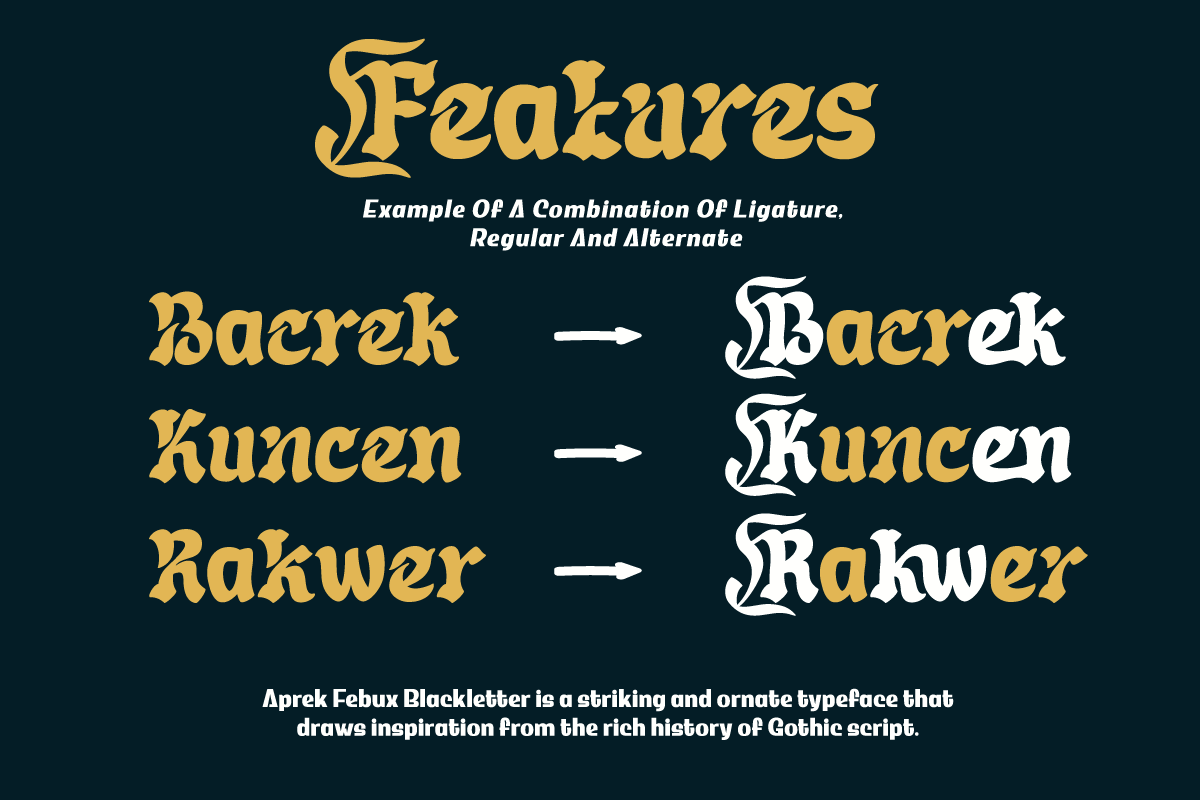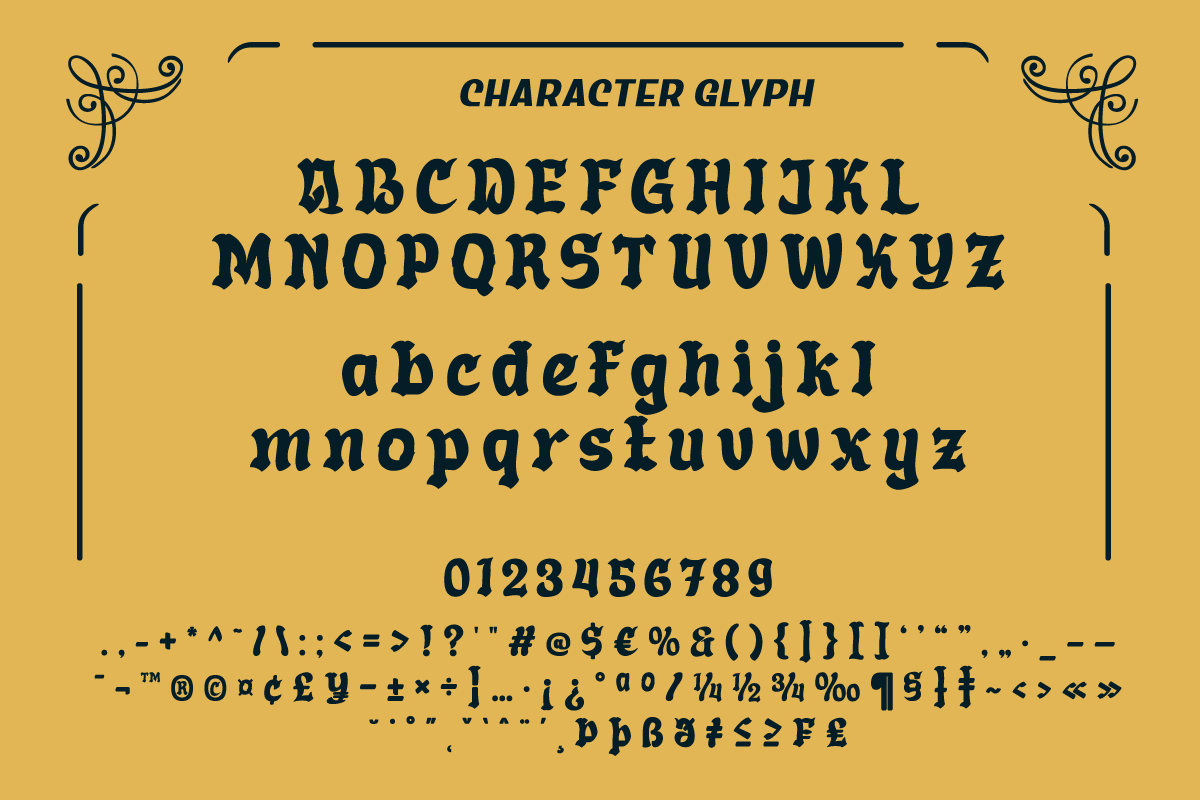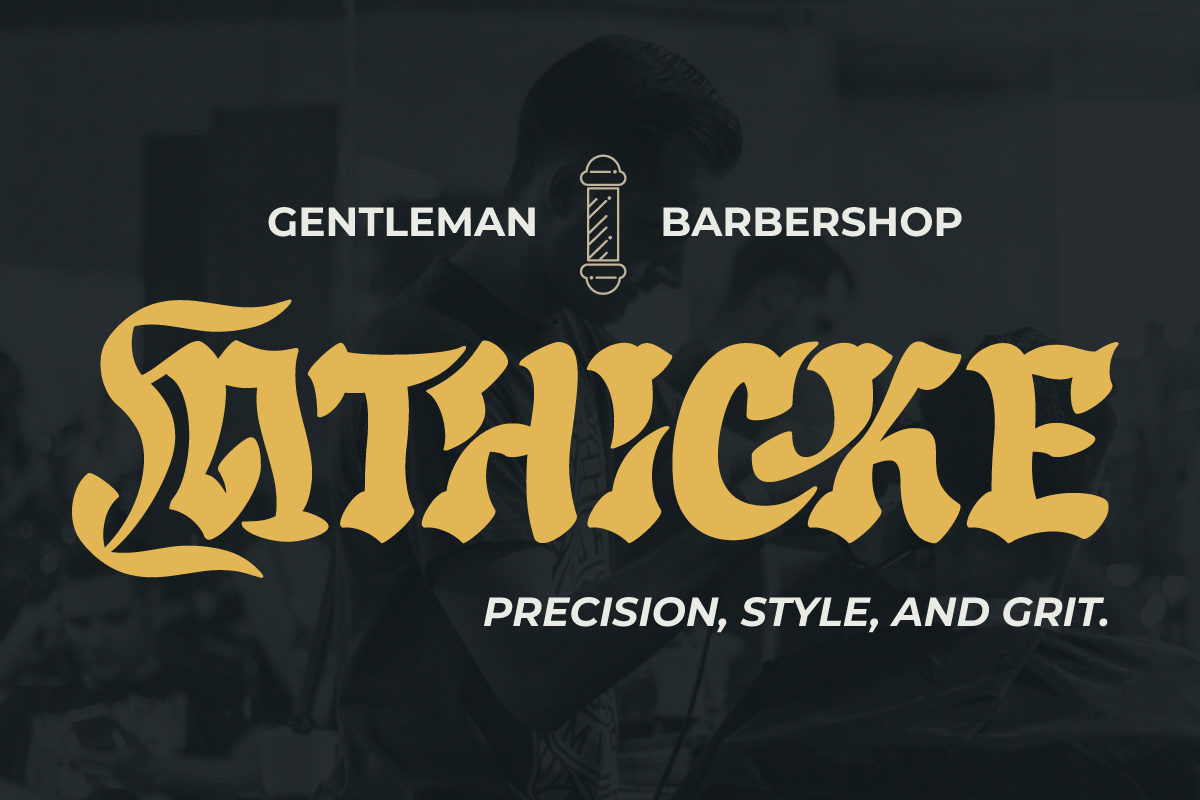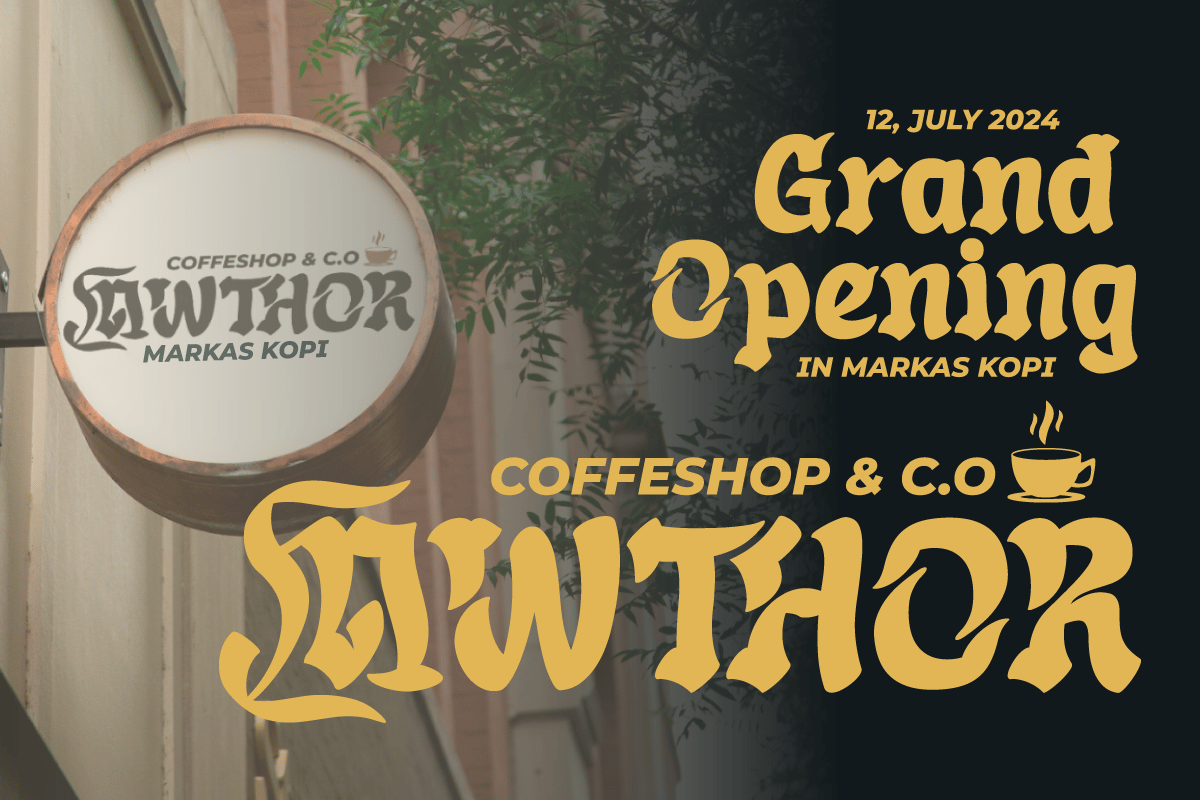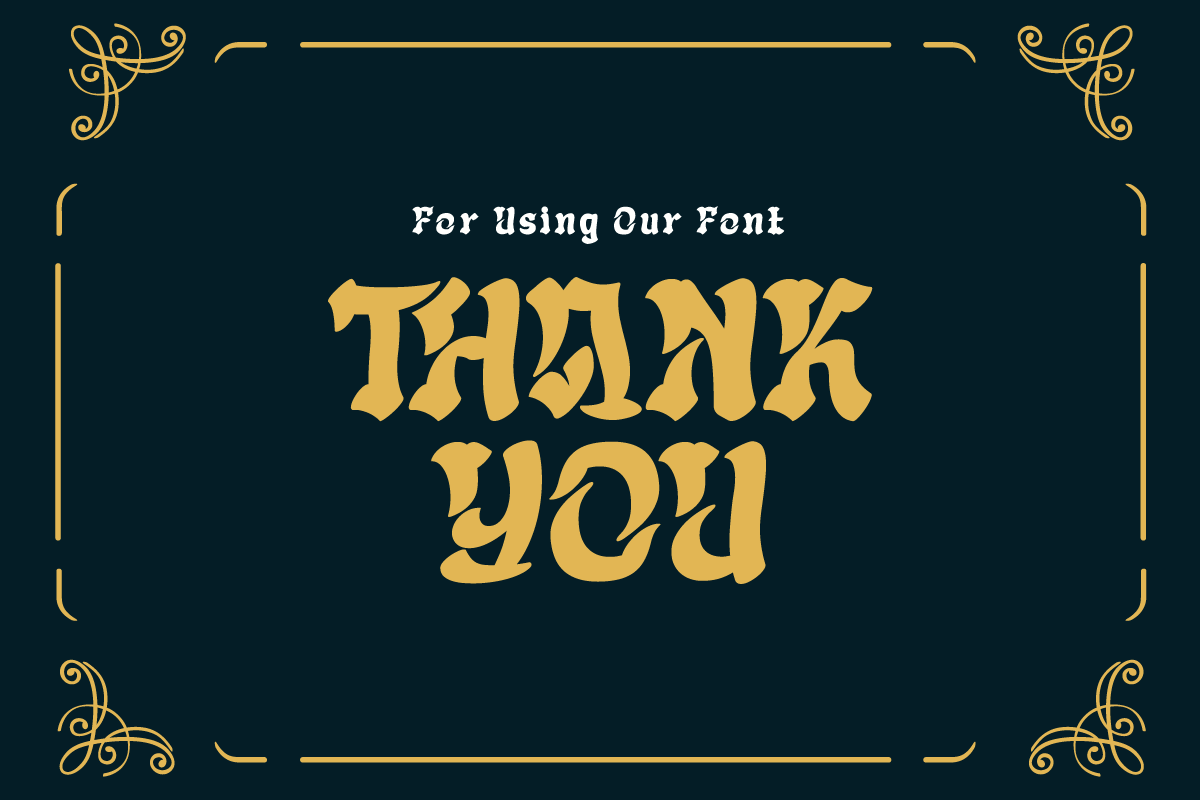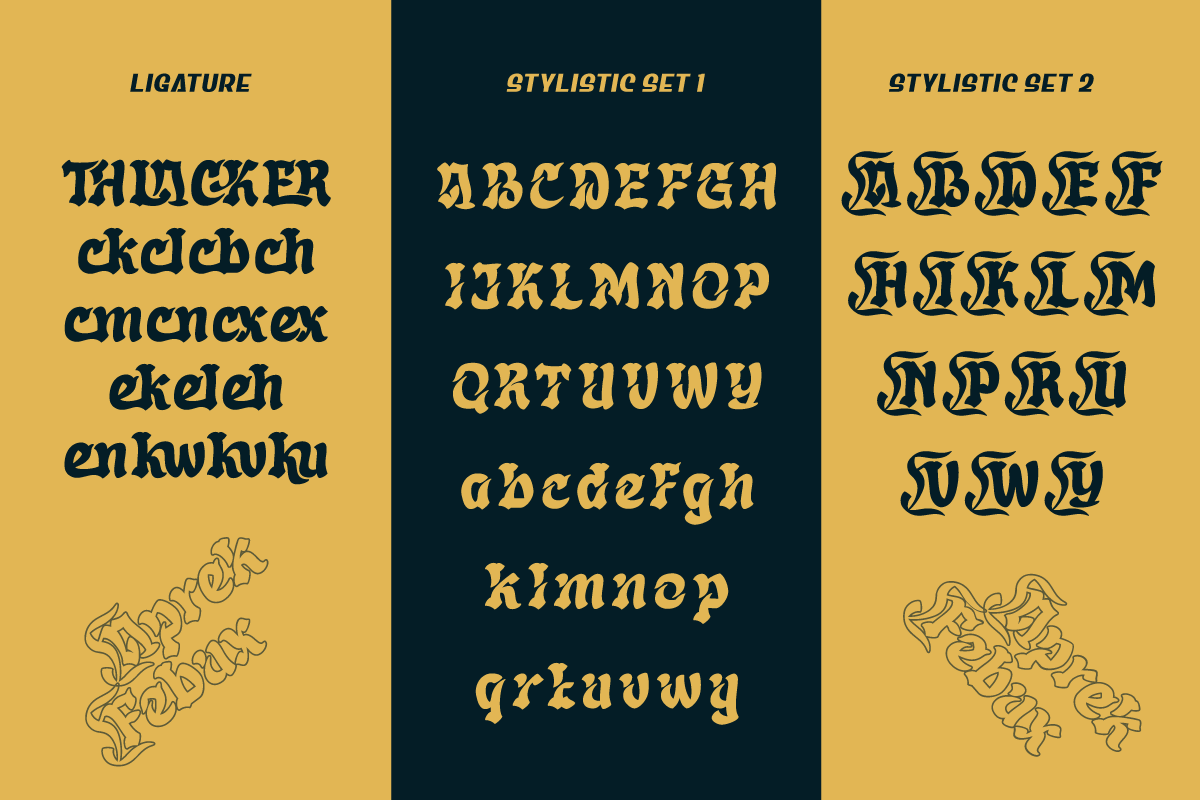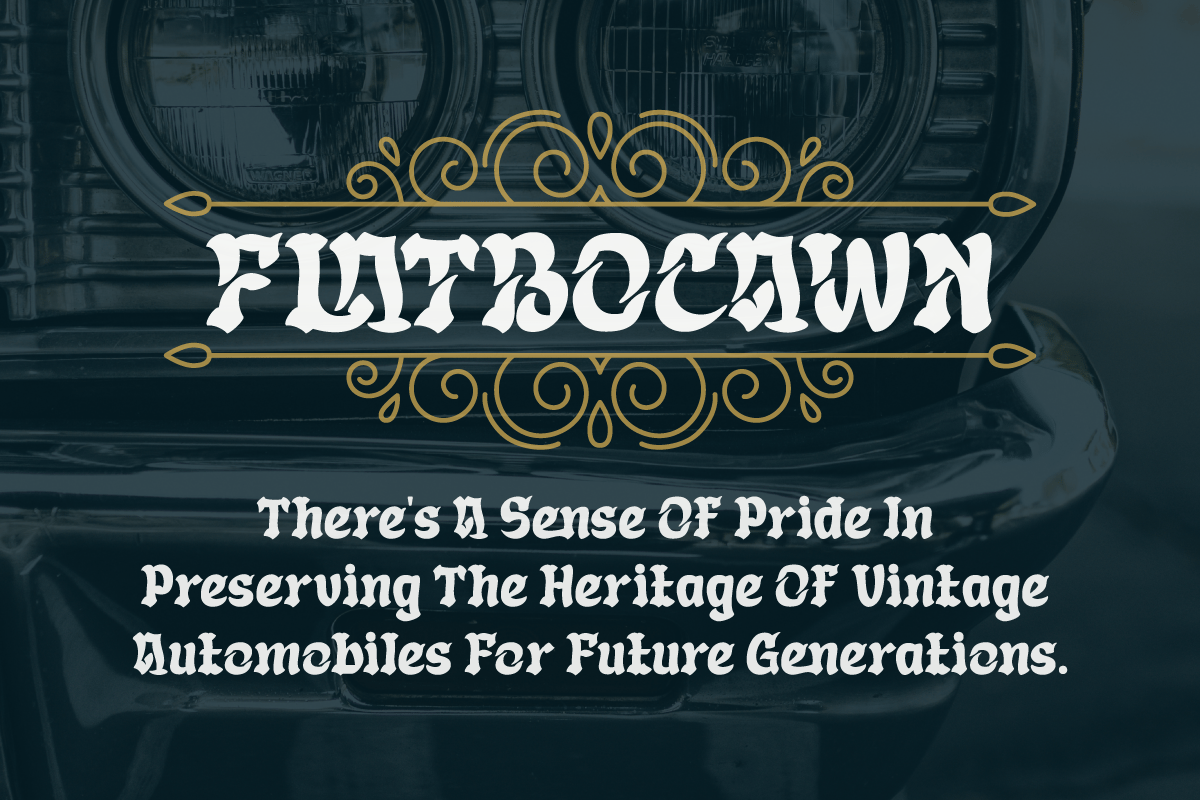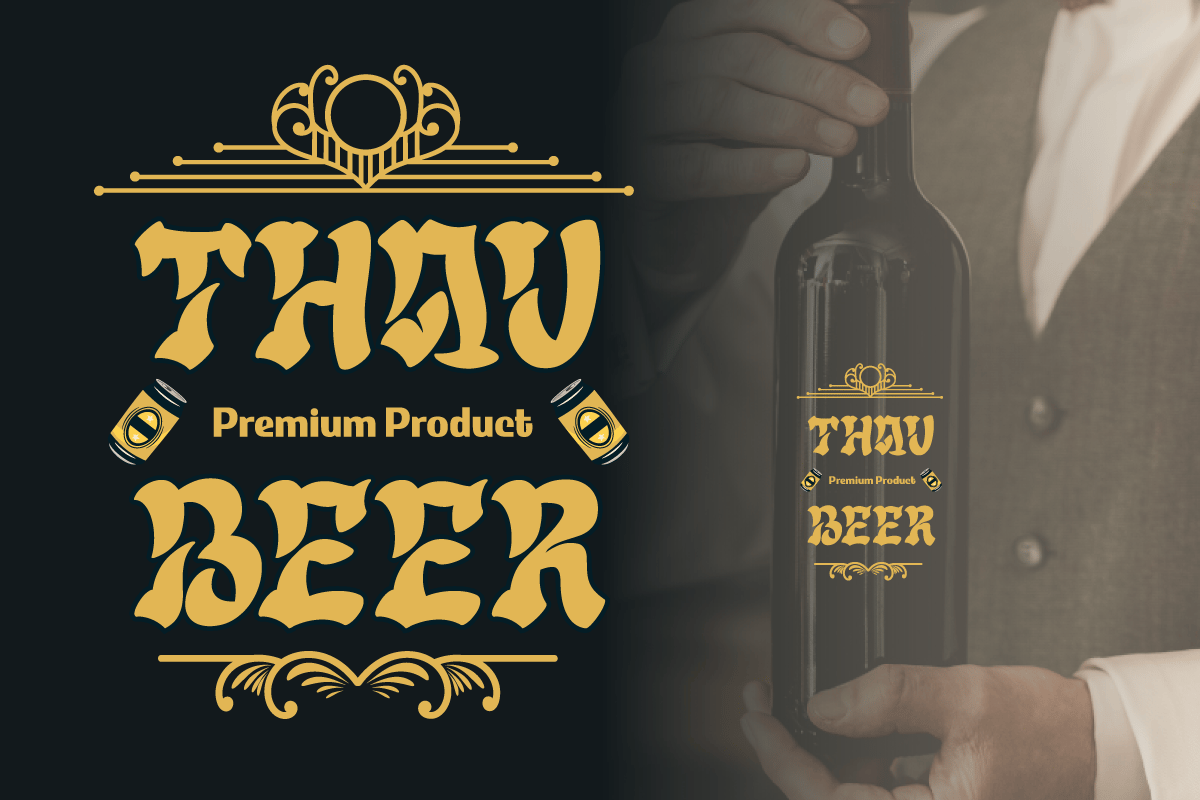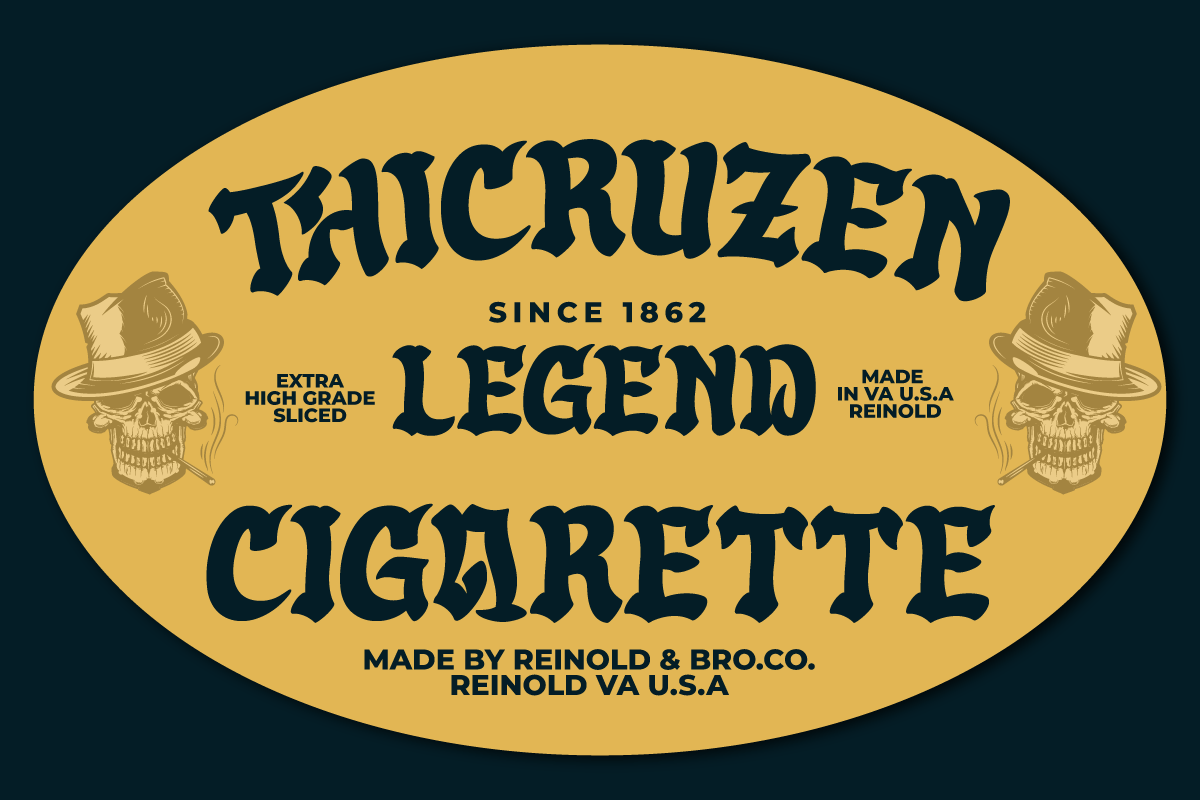
Aprek Febux – Display Font
“Welcome to the vibrant and bold world of typography!” Aprek Febux is a display typeface that adds sharpness, aggressiveness, and excitement to your projects. Aprek Febux, with its unequaled capacity to generate spectacular displays, is the ideal answer for your diverse variety of visual creations.
Aprek Febux offers more than simply lovely letters. This font enables maximum versatility and creativity in every step of your design with excellent features such as ligature and alternate. You may quickly construct one-of-a-kind letter combinations to add a personal touch to your projects.